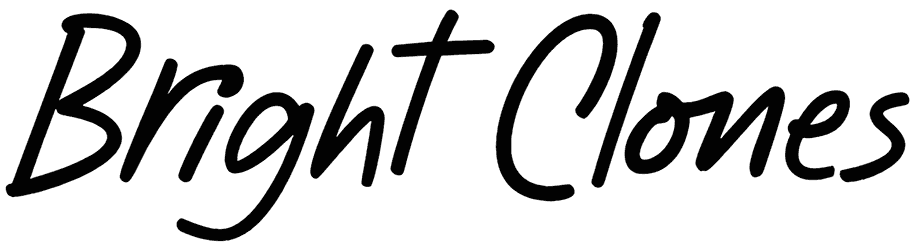
Bright Clones Font
Bright Clones is a new motivational quote font that is brilliant for school design and wherever you wish for a friendly, sometimes childish personality! It provides cute, slim, hand-drawn characters that are enjoyable and playful, plus they give your typography a creative look.
As it has a fresh and exciting design, there are many places that you can include it, and a few of those popular places that it will fit well are books, back-to-school flyers, branding, logos, and clothing.